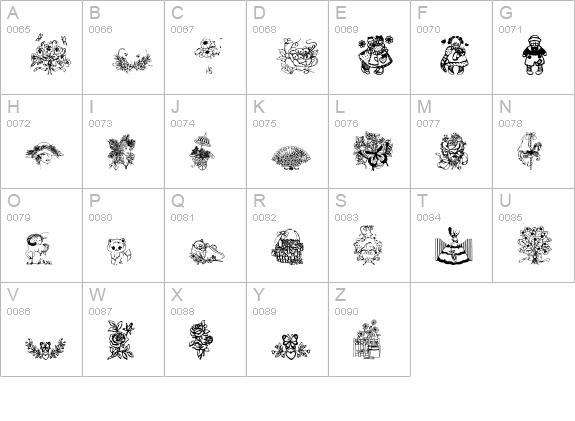
Cindy Baker Font Details
Cindy Baker font is a charming and elegant typeface that exudes a sense of whimsy and sophistication. With its delicate curves and stylish flourishes, this font is perfect for adding a touch of personality to any project. Whether you're designing invitations, branding materials, or social media graphics, Cindy Baker font is sure to make a statement. What makes Cindy Baker font even more appealing is that it is completely free to download at FontsMarket.com. This means that you can start using this beautiful font in your designs without having to spend a dime. Don't miss out on the opportunity to enhance your creative projects with the unique charm of Cindy Baker font. Download it today and let your creativity shine!